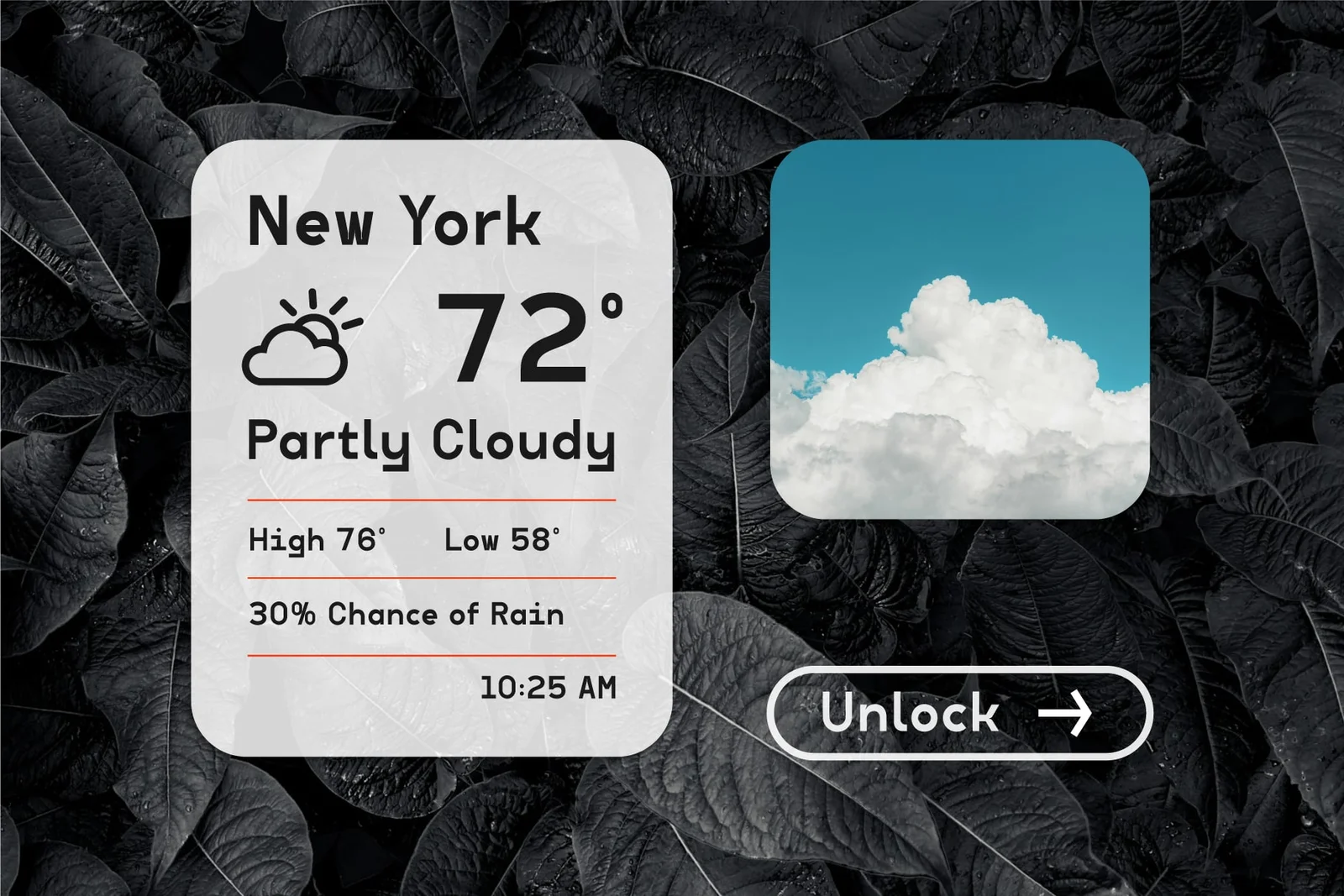
Typography is a big deal in design. It sets the atmosphere and helps make your message clear. Keeping up with the latest trends can make a huge difference in how your work looks and feels. So, let’s dive into the top typography trends 2025 and see how you can use them to bring more creativity and personality into your designs.
Key Takeaways:
- Variable fonts are a top choice among designers for their flexibility to create responsive and adaptable designs.
- Expressive and imperfect fonts, like handmade, handwritten, experimental, or bubbly styles, are perfect for standing out and adding personality to your work.
- Practical, modern fonts, such as brutalist or future-oriented typefaces, are ideal for clean and contemporary design.
10 Typography Design Trends 2025
Here are the top typography trends for 2025 you’ll want to keep on your radar.
1. Responsive Typography with Variable Fonts
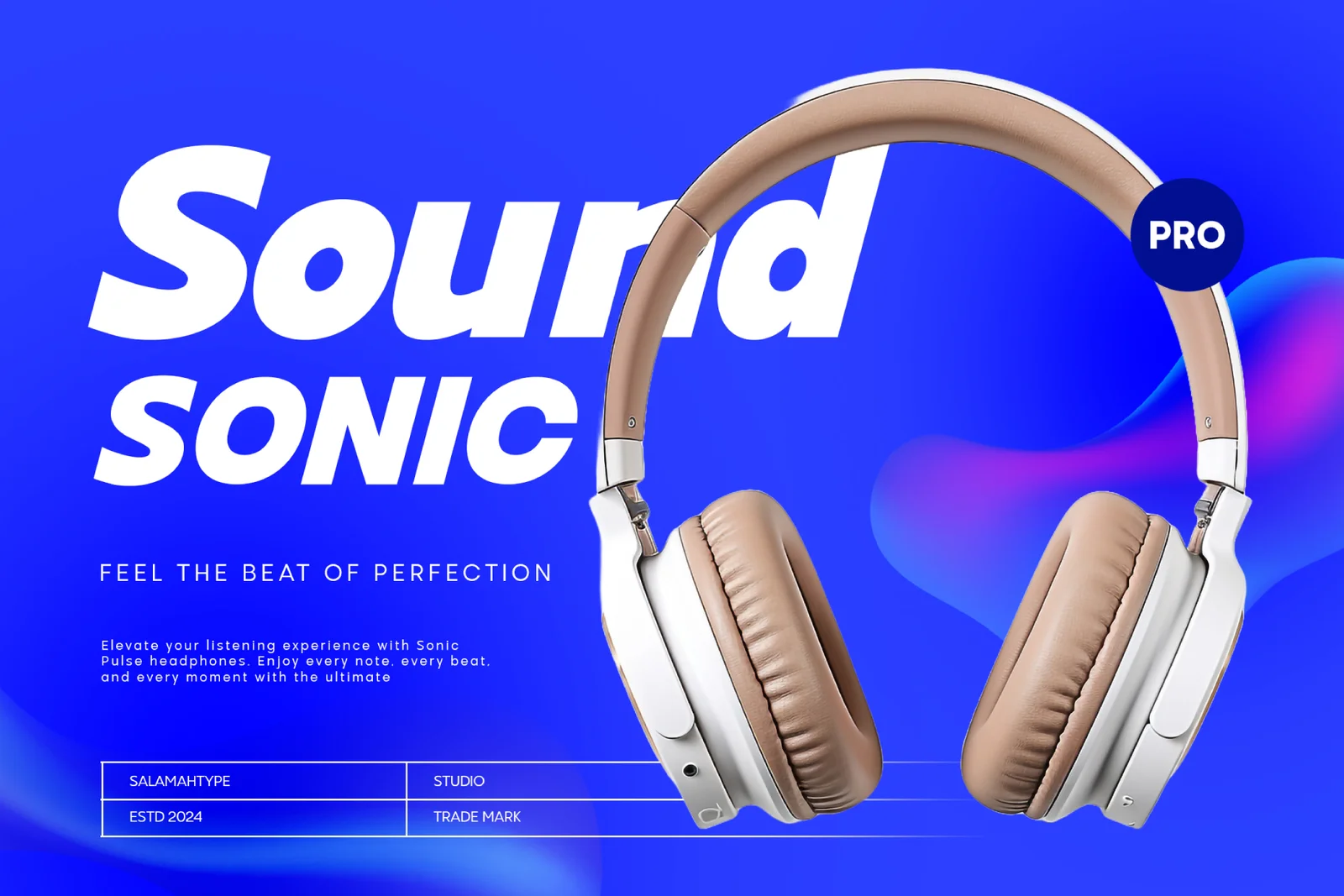
In this digital era, the demand for responsive design has increased. Variable fonts are rising in popularity for good reason. They offer flexibility, consistency, and better readability without switching between multiple font files.
Stella Nova and Mantey are great examples. They are versatile, practical, and perfect for creating designs that adapt across all devices.
2. Throwback with Retro Vibes Typography
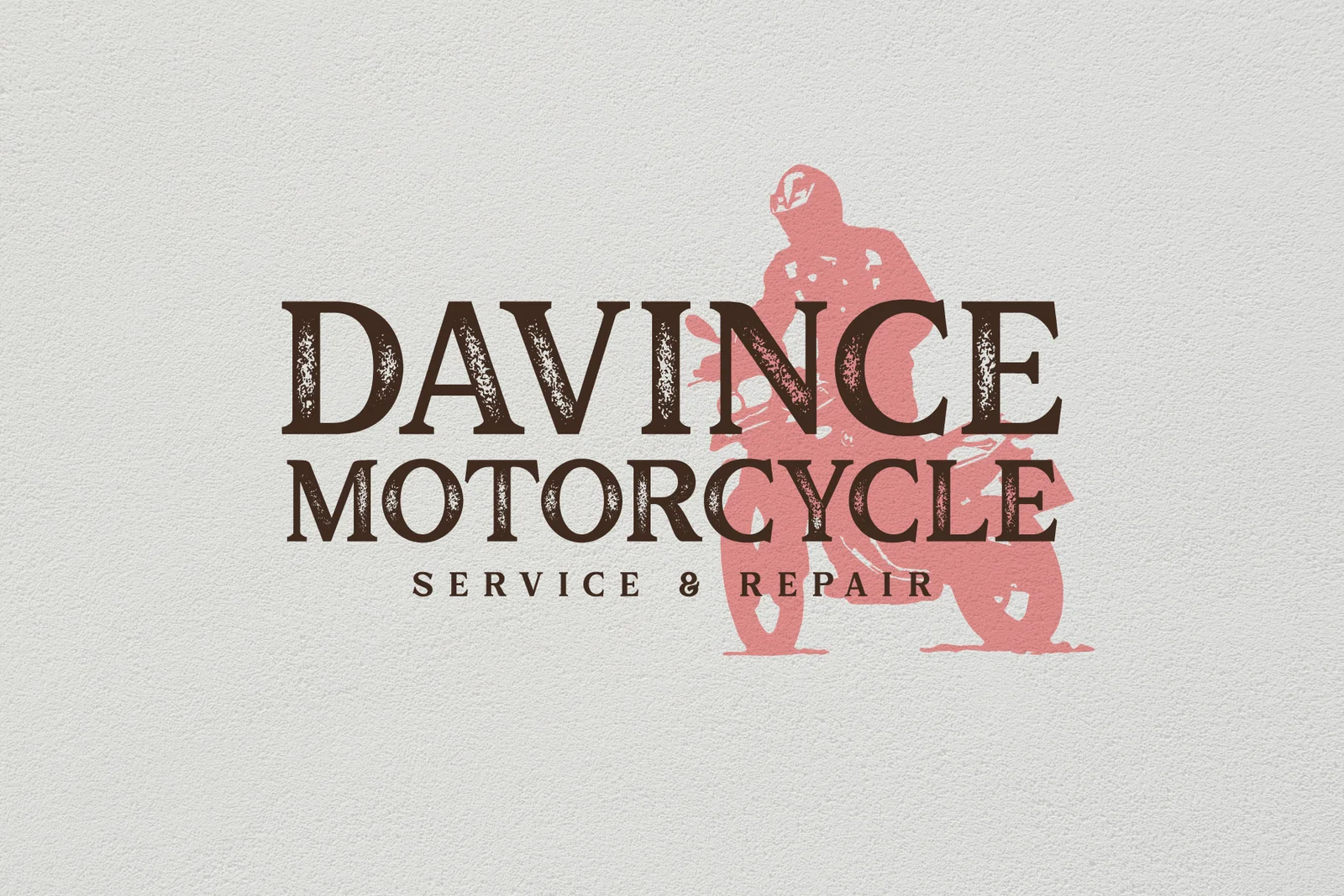
There is always room for nostalgia. Retro-inspired fonts will be one of the top typography trends 2025, helping you evoke a memory of past eras. Whether Y2K, retro-futurism, pop art, or pixelated, retro typography offers a nostalgic yet refreshing appeal.
You can also blend vintage elements with modern design to create bold visuals that resonate across generations. Try Vorgane, Zenarico, or Major Birch to promote your best retro vibes.
3. The Return of Brutalist Typography
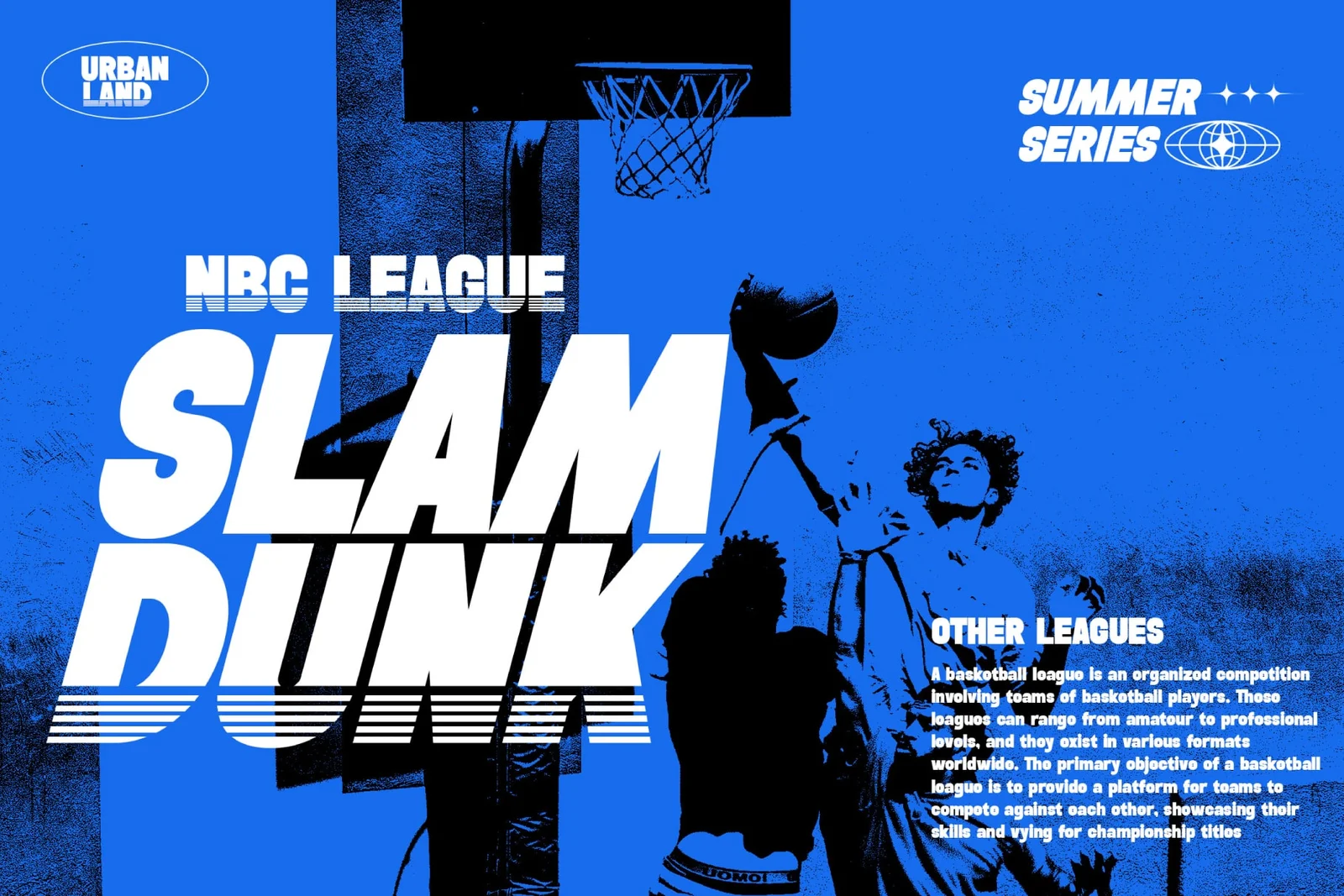
Brutalism in web and graphic design has re-emerged with strong, raw, and disruptive typography. Brutalist typography ignores beauty in favor of function, often appearing in bold, dark lettering to send powerful messages. It won’t just talk, it will shout.
Fonts like Jumbox, Urban Land, and Slob Dough are great examples that can grab bold attention and make your designs impossible to ignore.
4. Being Elegant with Expressive Serif
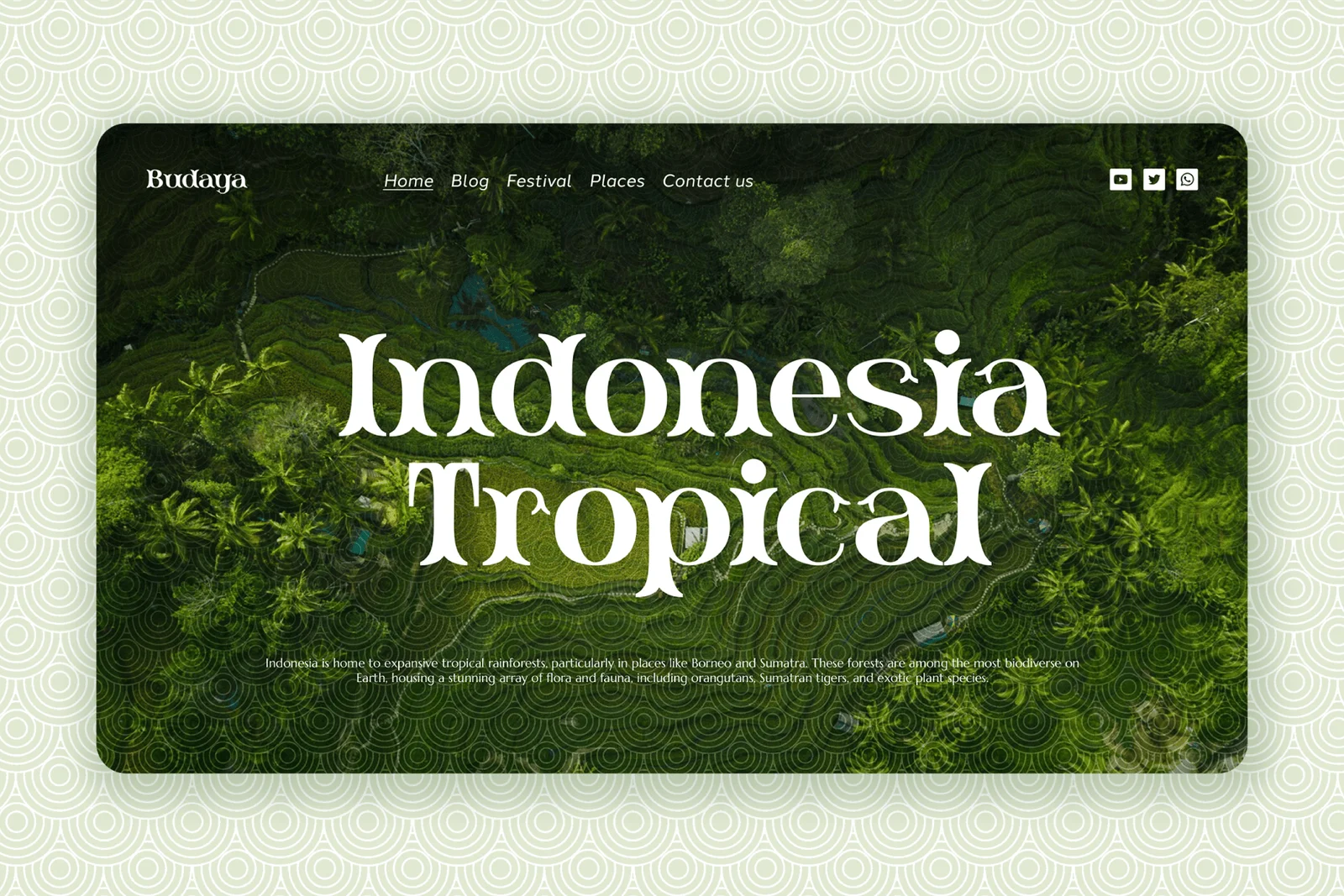
Serif fonts have evolved beyond their traditional stiff and formal look. They’ve become more expressive, stylish, and approachable, making them a standout in the typography trends 2025.
A great example is the Budaya font. Its unique strokes give it a distinctive character, helping your designs feel more personal and visually engaging.
5. Adding a Personal Touch with Organic Handwritten Fonts
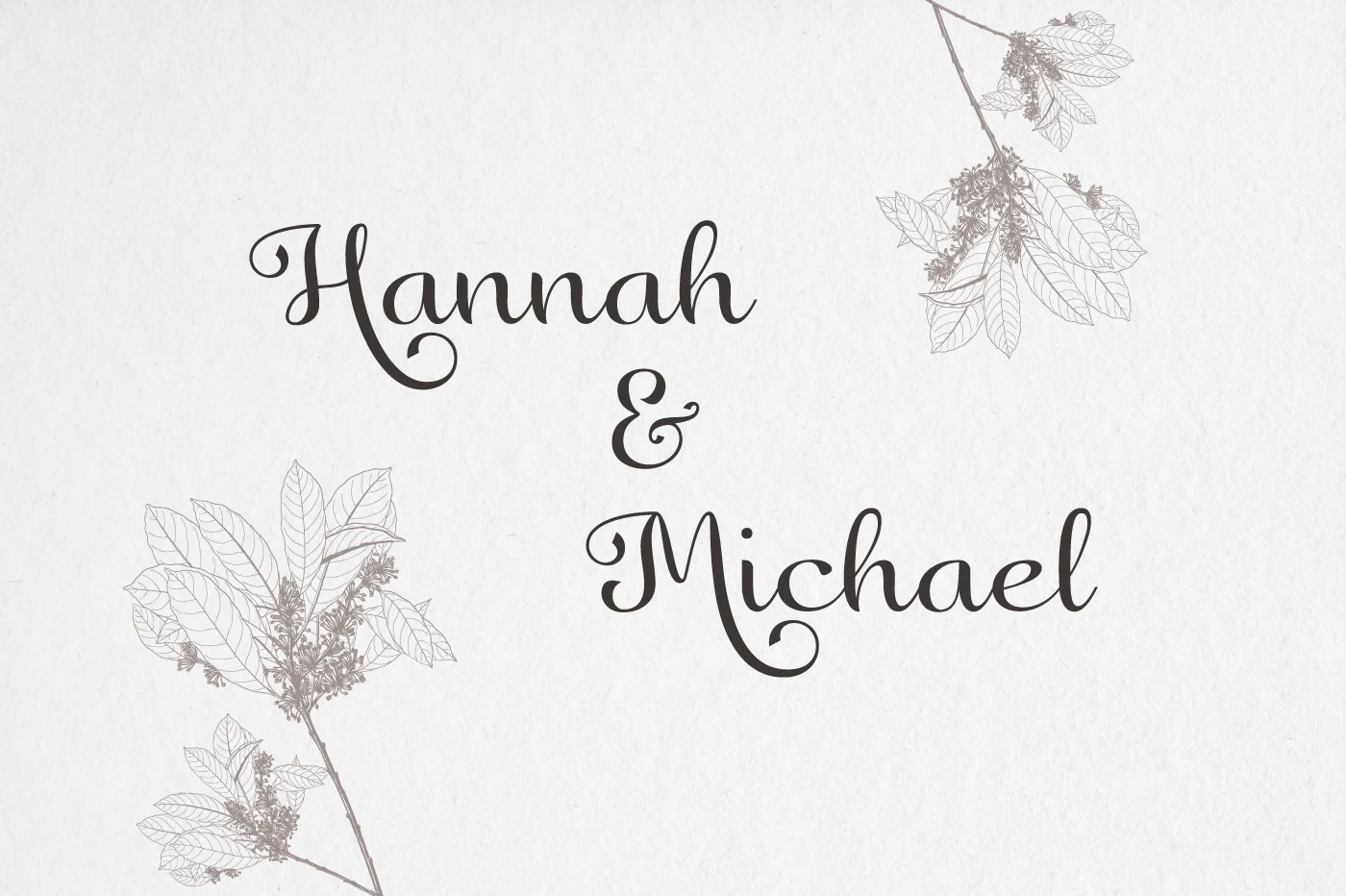
Adding a personal touch can make your design feel more relatable and authentic. Handwritten fonts are a great way to achieve this. Take the Rachel Karlie font as an example. Its elegant cursive strokes evoke femininity and charm, allowing the beauty of each letterform to shine through.
6. Embracing Imperfection with Handmade Fonts
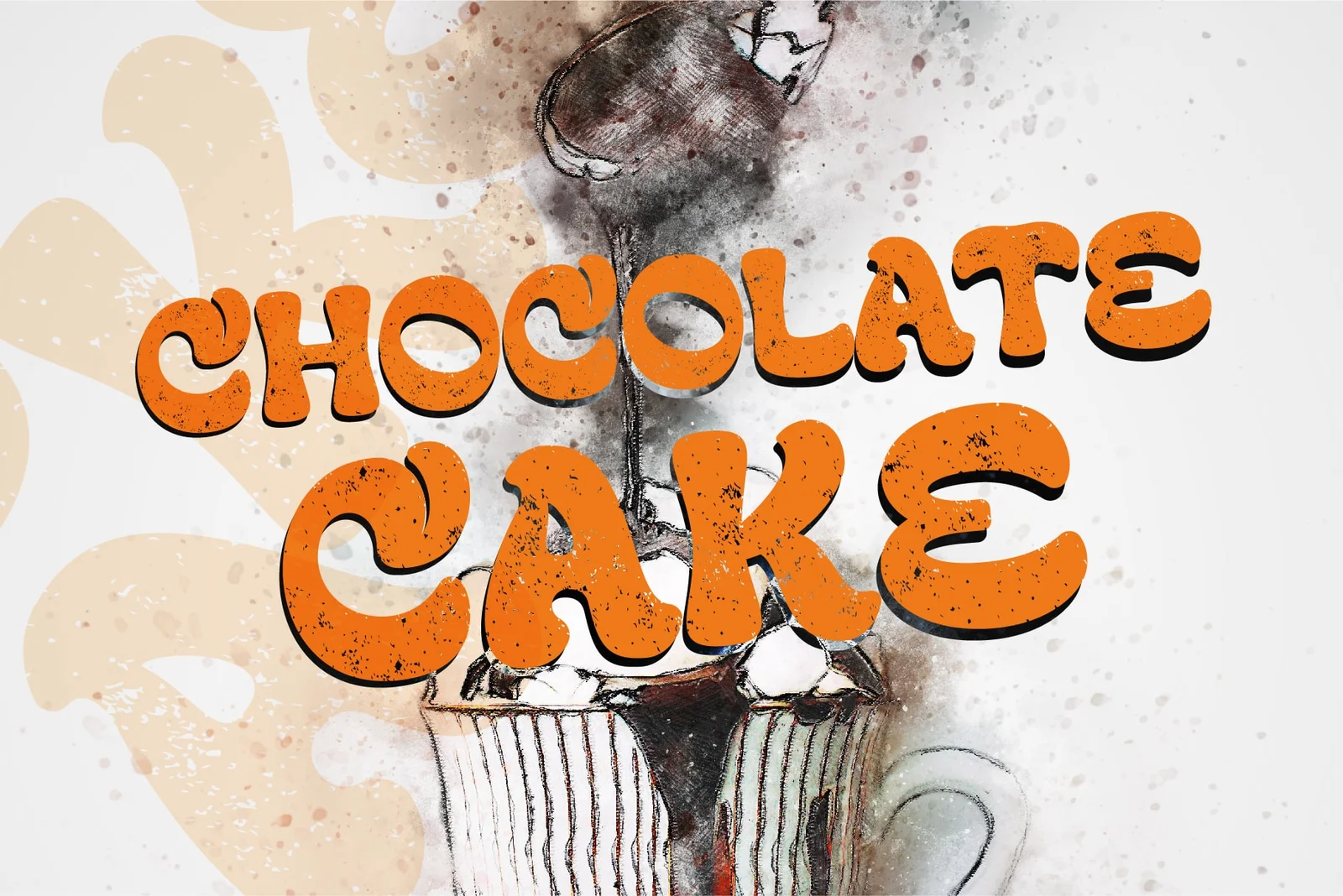
In this digital aesthetic, everything seems too perfect. Thus, handmade and hand-drawn fonts are one of the leading typography trends of 2025, giving a breath of fresh air. These imperfect, organic typefaces inject warmth and authenticity into branding and visual content.
Cocoa and Playfresh are fun typefaces that give your design personality. Their uneven, textured strokes and human touch help brands tell more personal stories.
7. Breaking the Rules with Experimental Typography
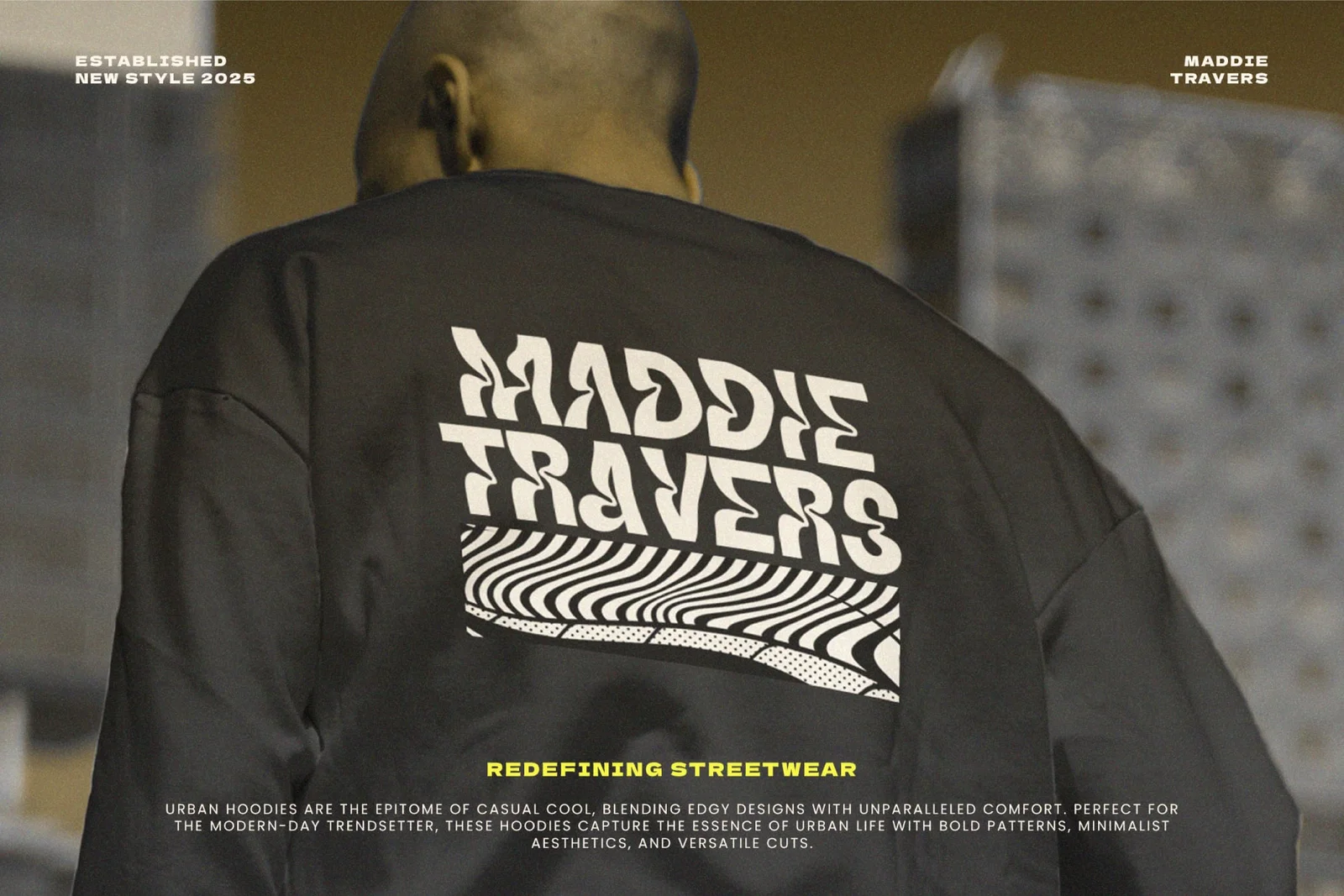
Don’t be afraid to push boundaries. Experimental typography includes deconstructed letterforms, distorted glyphs, overlapping text, and chaotic spacing. This trend is to challenge the traditional aesthetics. Express yourself with eccentric fonts, like Sunday Vacay and Hydration, to make a big impact on your design.
8. Being Playful and Bold with Bubbly Font
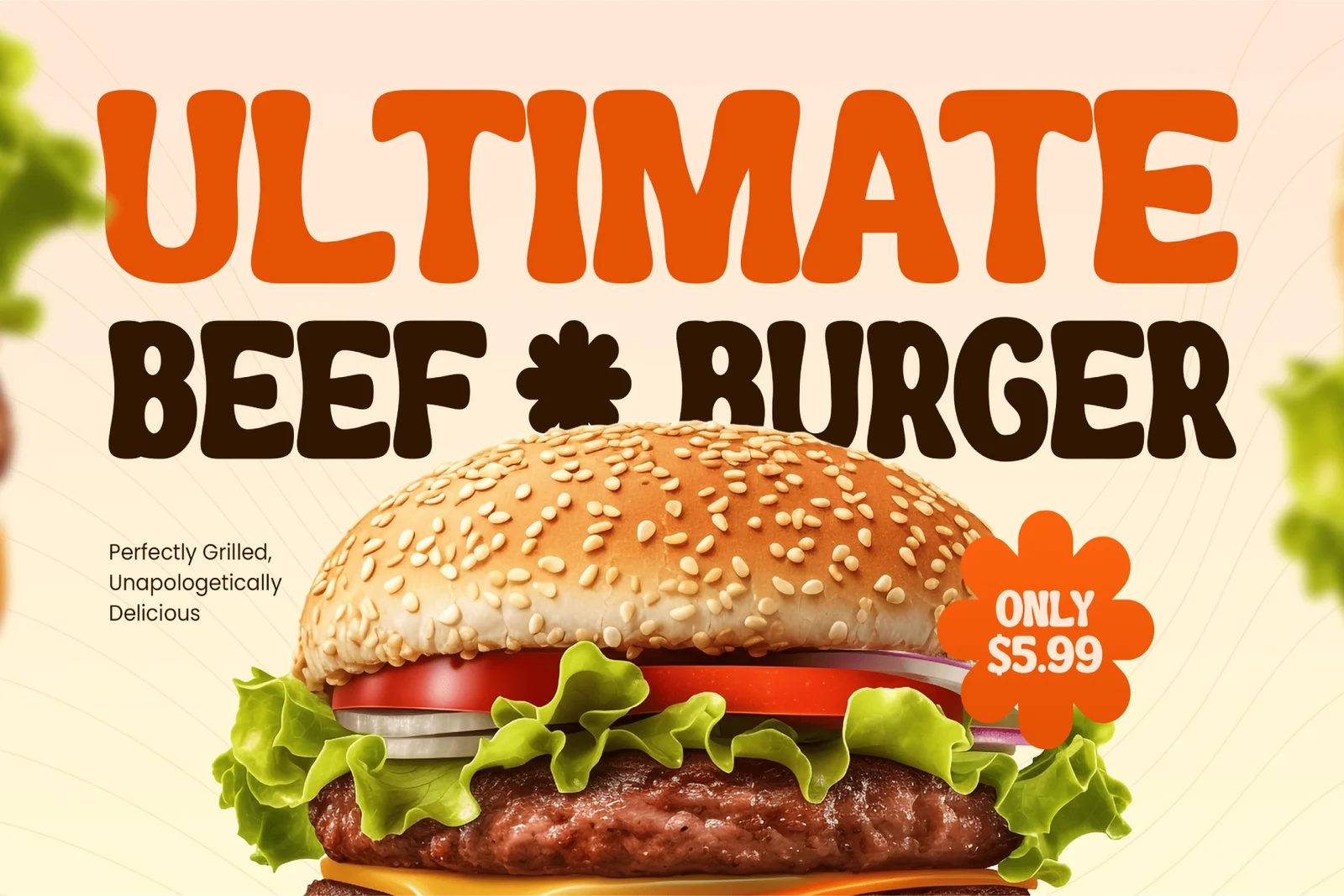
In 2025, design is also about having fun. Bubbly fonts are making a splash with their rounded shapes, bold curves, and cheerful personalities. As part of the typography trends of 2025, bubbly fonts can be expressive and inviting, perfect for making a memorable impression.
Great examples include Grooven and Bicken fonts, with their soft curves and playful rhythm. They’re perfect for headlines or branding to spread a sense of positivity.
9. Striking Visuals with Dramatic Contrast Typography
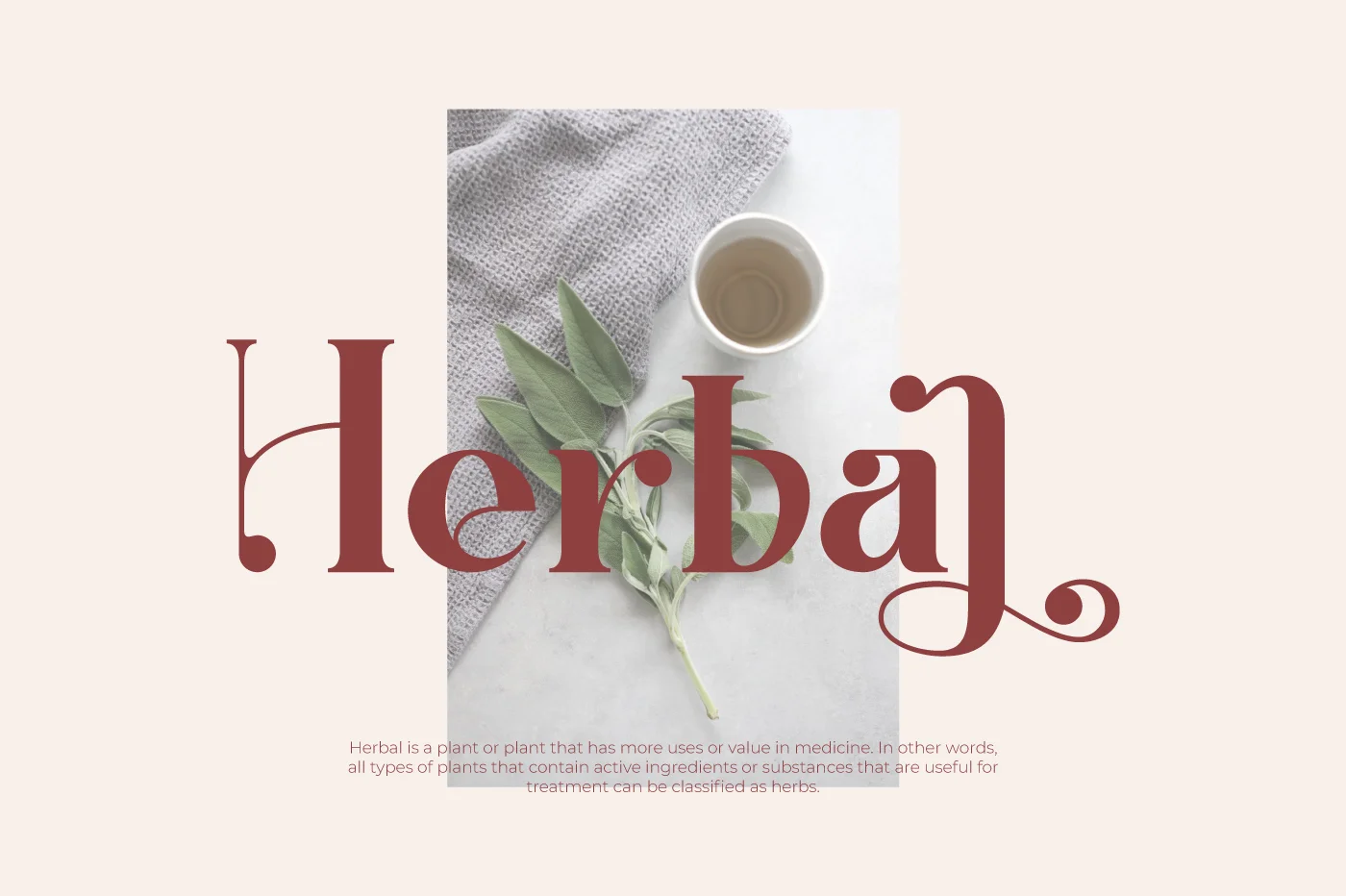
Dramatic contrast in typography, such as bold weights against thin lines or sharp angles paired with soft curves, is trending heavily in 2025. These designs create striking visual hierarchies and make key messages stand out.
Try Meriyan or Clasima to establish a sophisticated look that grabs attention in your design.
Let Your Type Talk: Embracing the Trends Ahead
Looking ahead to typography trends in 2025, it’s clear that the future of design is all about versatility and bold expression. These trends offer exciting opportunities to refresh your design work. Embracing these trends will let your typography resonate better with today’s audience.If you’re looking for fonts that match these trends, Salamah Type is the perfect place to start. Discover bold, unique font collections designed to keep your work fresh and on-trend. Give your designs a creative boost with extraordinary fonts that are not only eye-catching but also affordable.